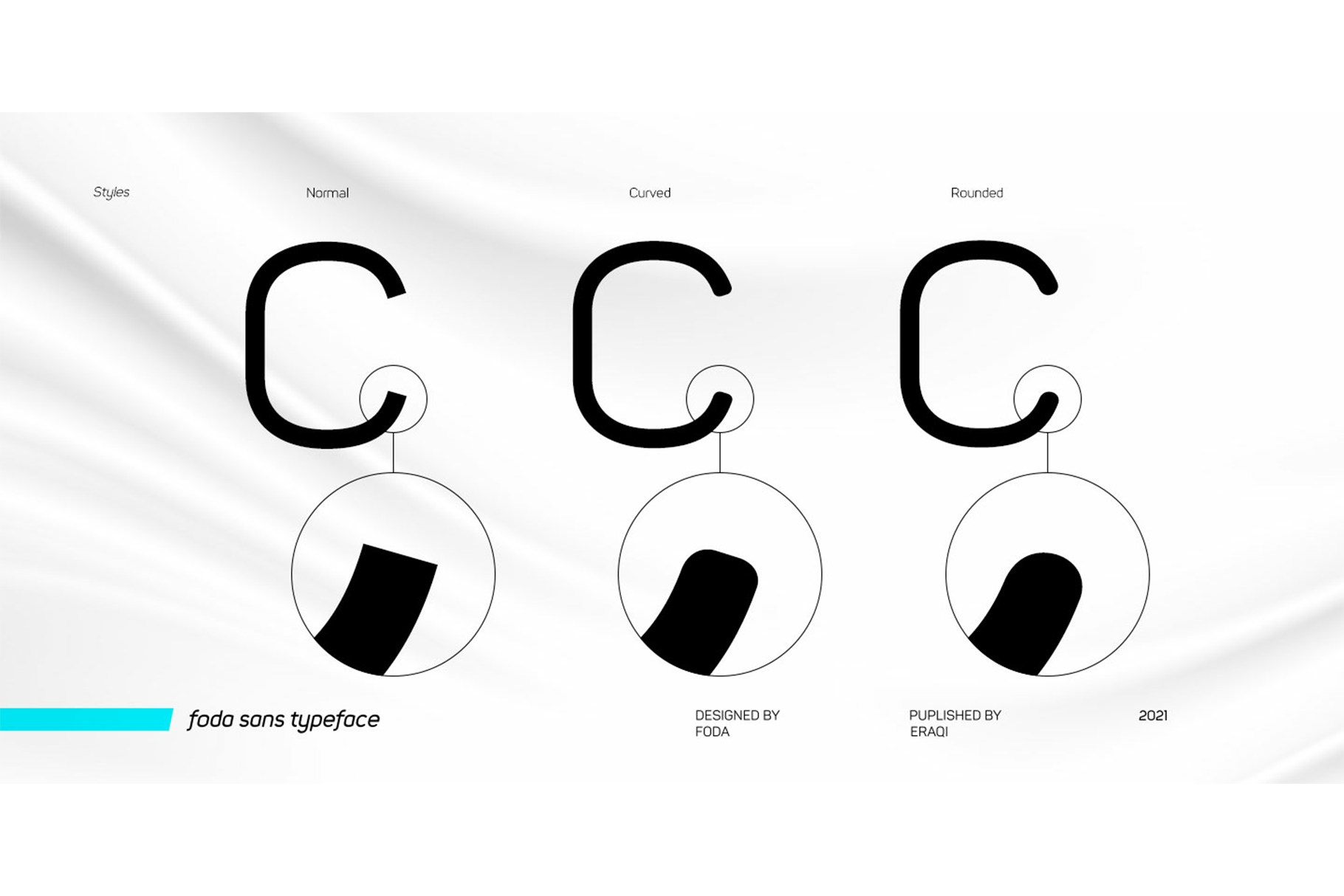
Foda Sans Font
FodaSans typeface is a Multi-language font family for a wide range of uses, comes with 126 weights with 463 glyph for each weight, supports Latin and Arabic language and covers OpenType features like Glyph Composition / Decomposition, Kerning, Standard Ligatures, Mark Positioning .. and more. The Typeface Have 6 Styles (Normal, Curved, Rounded, Solid, Solid Curved, Solid Rounded) with their obliques and italics ranging from Extra light to Black.